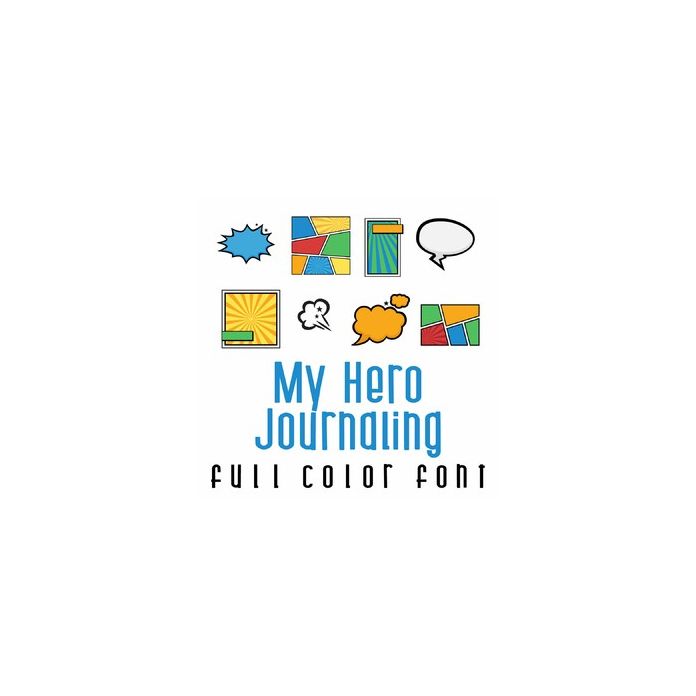
This adorable full color doodlebat font features 26 super hero journaling images. Perfect for Father's Day, use this fun set for cards, crafts, gifts, decor, parties, planner stickers, scrap book pages and more!